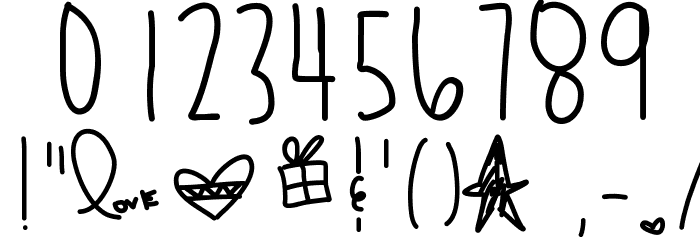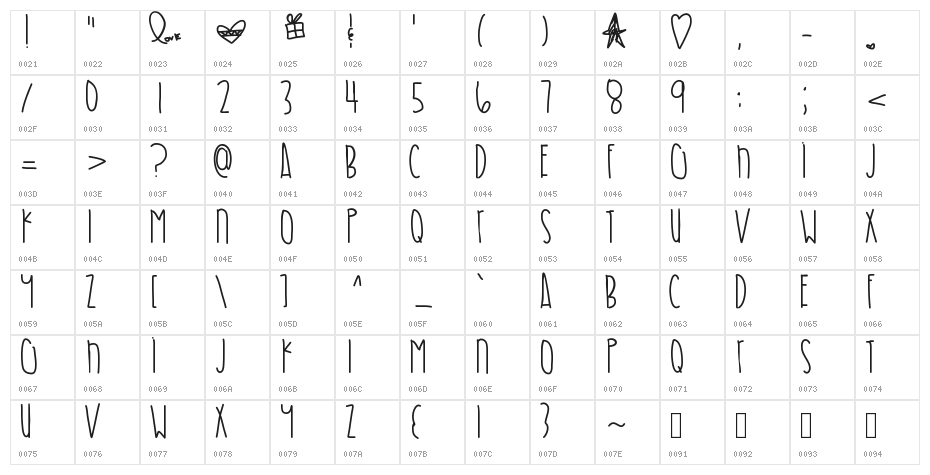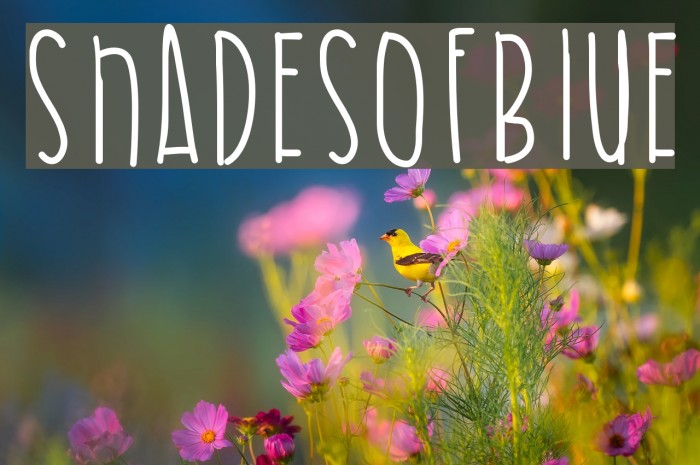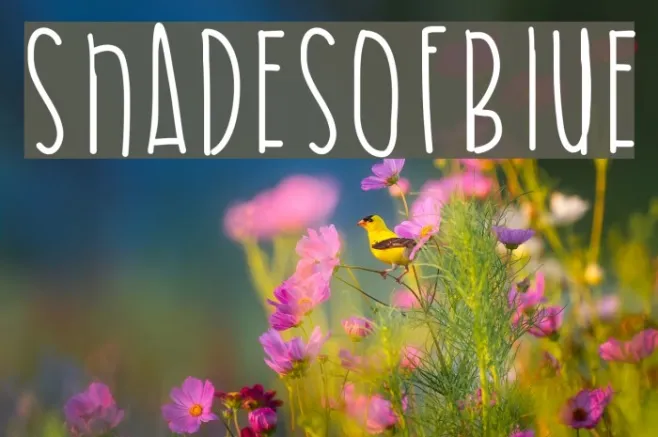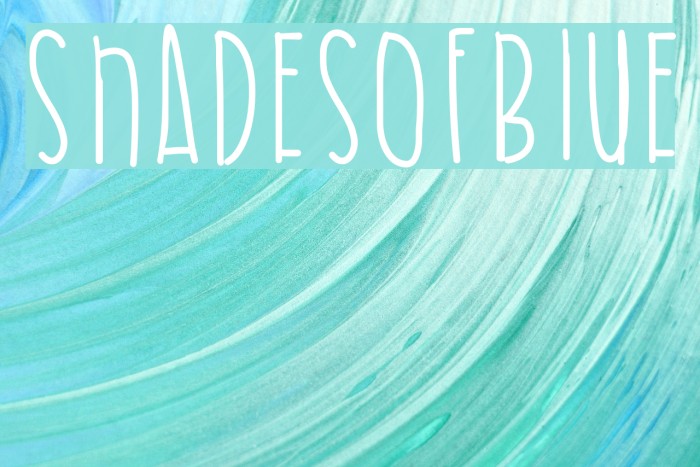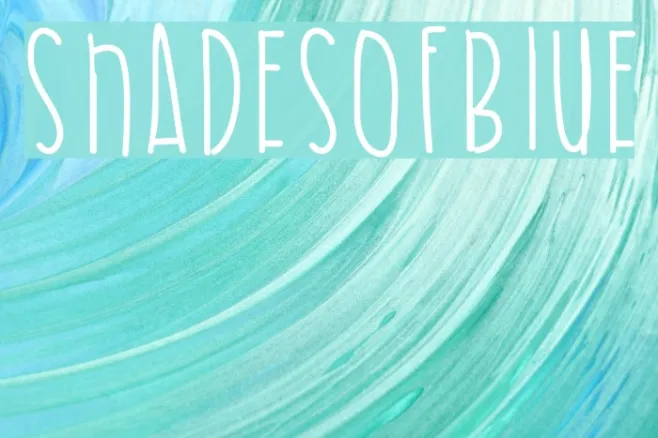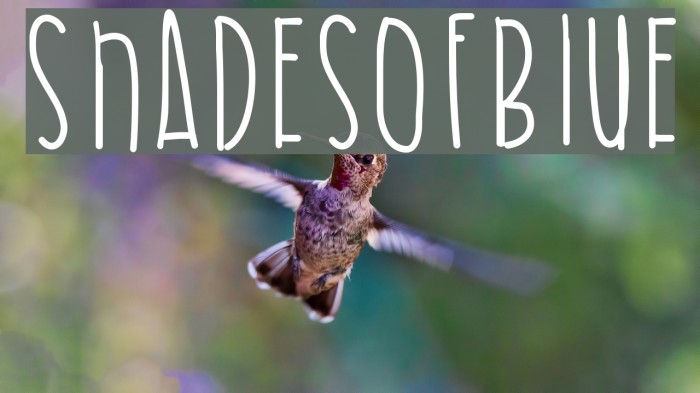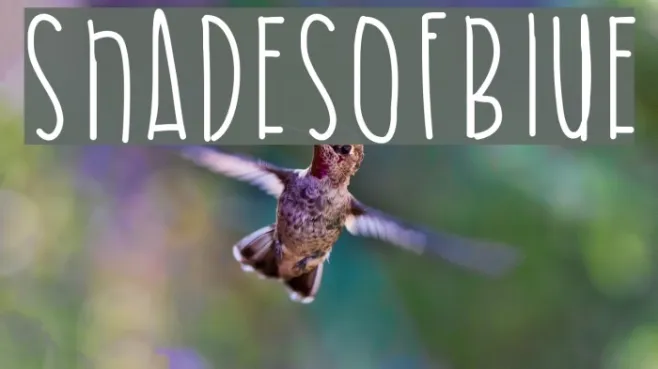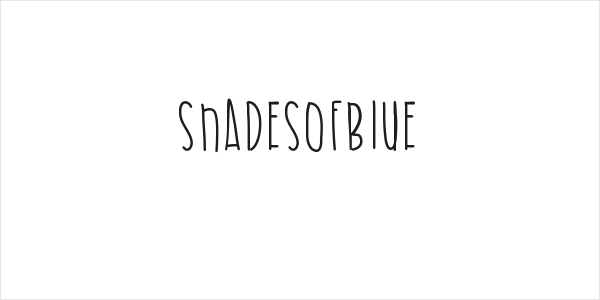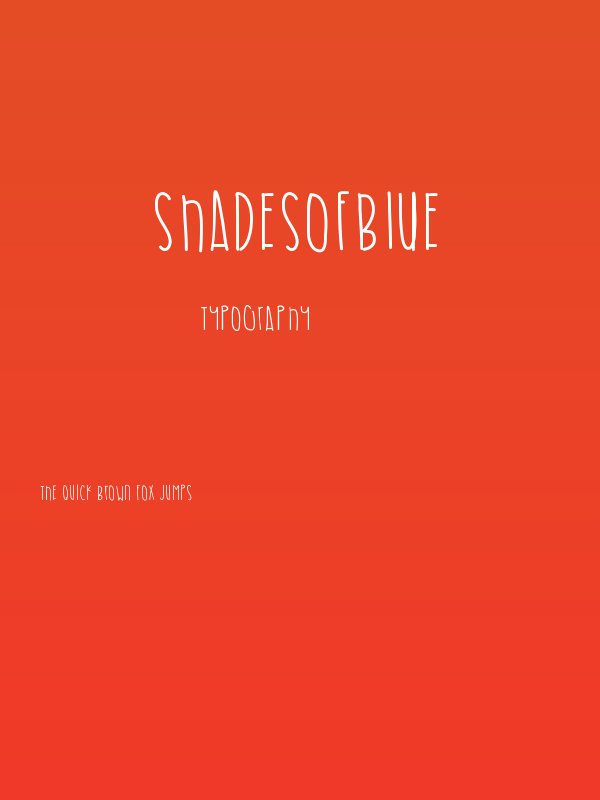
ShadesOfBlue Font
ShadesOfBlue Description
This font features a playful and whimsical handwritten style, characterized by tall, narrow letters with a consistent stroke width. The uppercase and lowercase letters maintain a uniform height, contributing to a cohesive appearance. The numbers are similarly styled, with a quirky and informal touch. Special characters, including symbols like hearts and stars, add a decorative element, enhancing the font's playful nature. The overall design is casual and approachable, making it suitable for projects that require a friendly and informal tone.
| Proposed Projects | Ideal for children's books, greeting cards, playful branding, and casual invitations. |